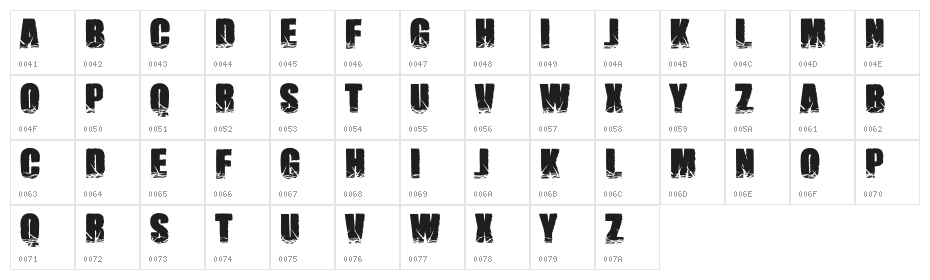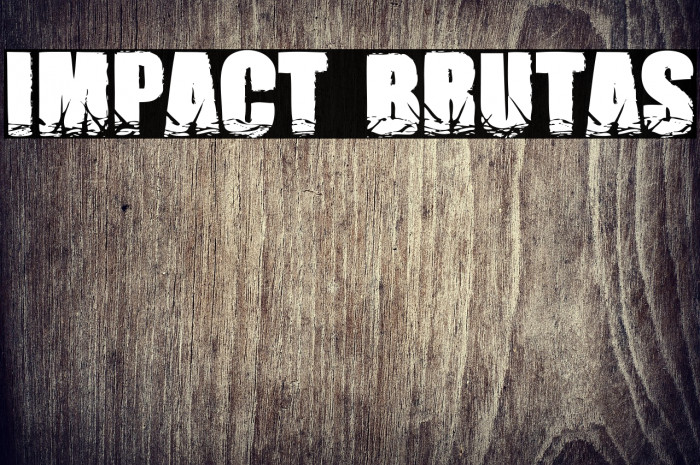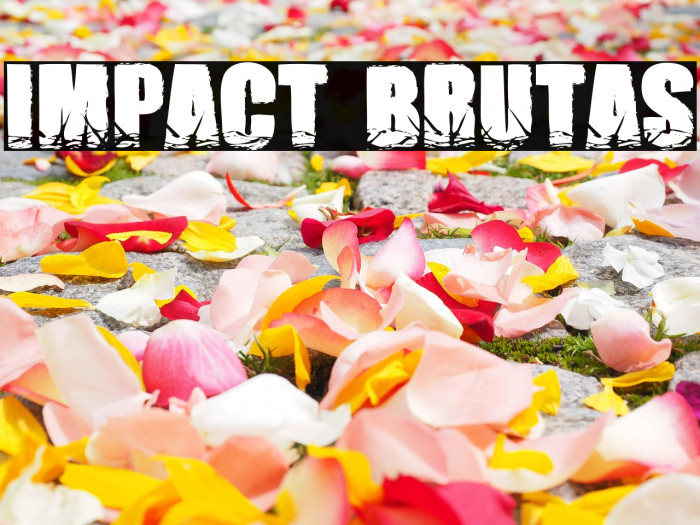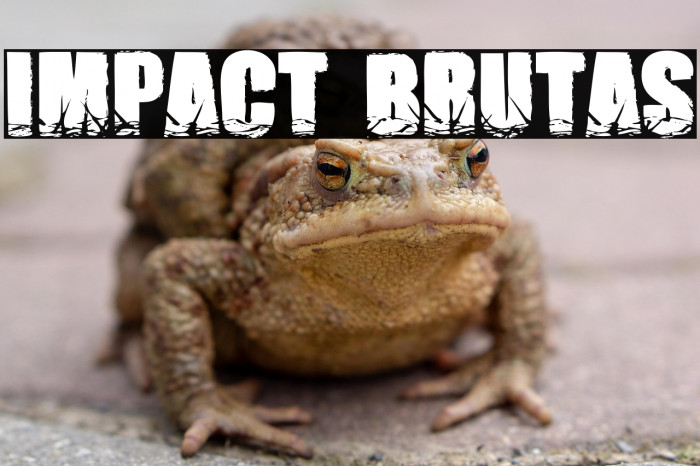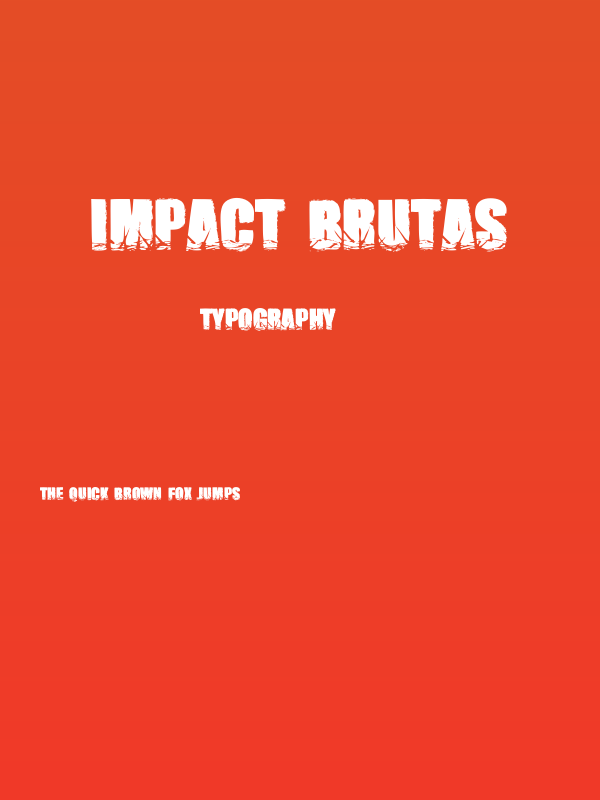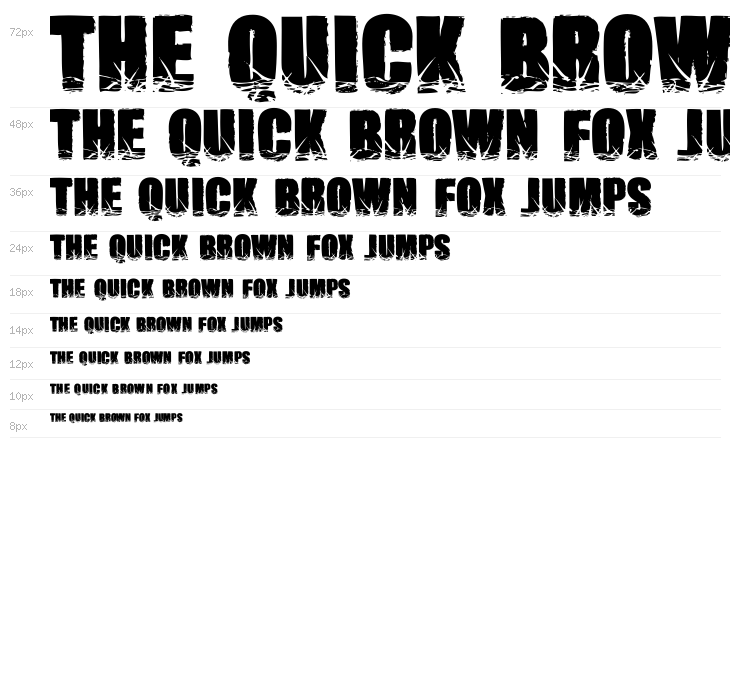
Impact Brutas Font
Impact Brutas Description
This font features a bold and rugged design with a distressed, grunge texture that gives it a raw and edgy appearance. The characters are thick and heavy, with a rough, scratched surface that adds a sense of chaos and intensity. The uppercase letters are uniform in height, creating a strong and impactful presence. The font's unique style is reminiscent of urban graffiti or industrial aesthetics, making it ideal for projects that require a bold statement. Its distressed look is consistent across all characters, providing a cohesive and striking visual effect.
| Proposed Projects | Ideal for posters, album covers, streetwear branding, and event flyers. |